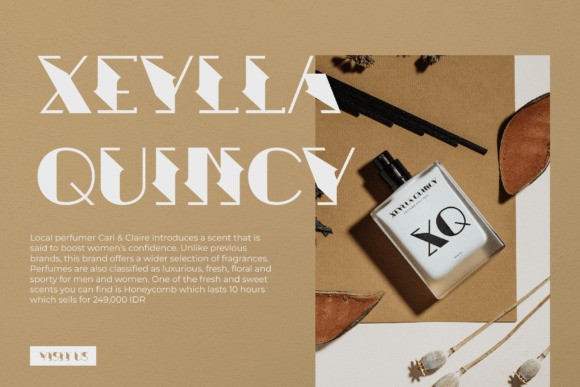
Carvinet Font
Carvinet is a unique and quirky display font ideal for headlines in a magazine or website, logos, T-shirt designs, and much more. Add it to your fonts library, and it will become your favorite in no time at all!